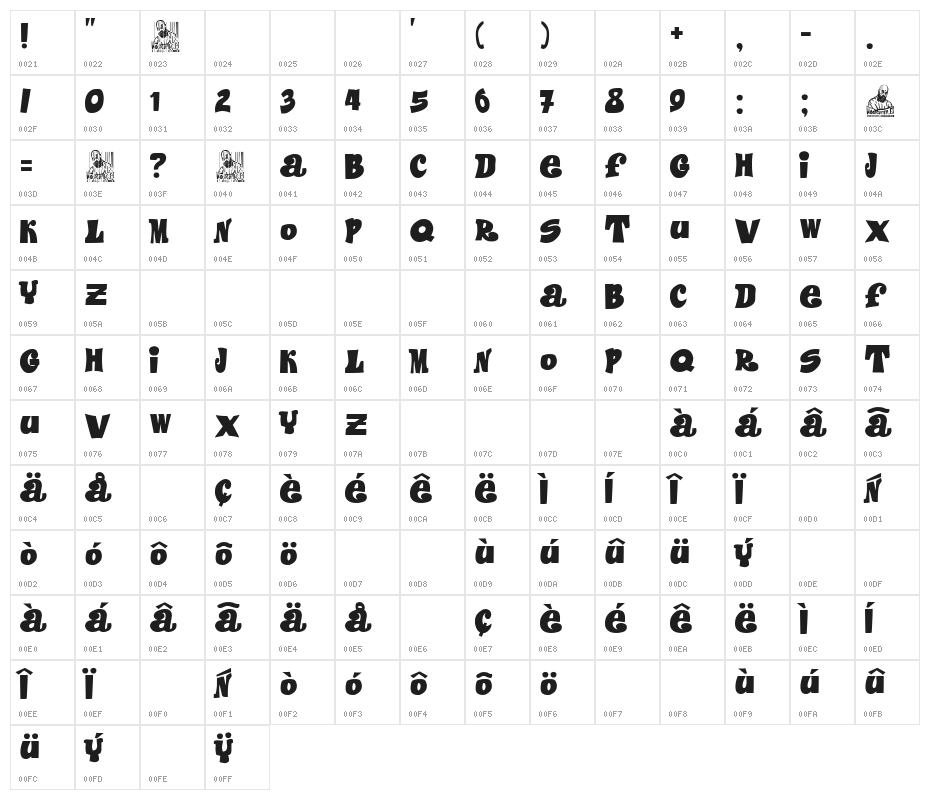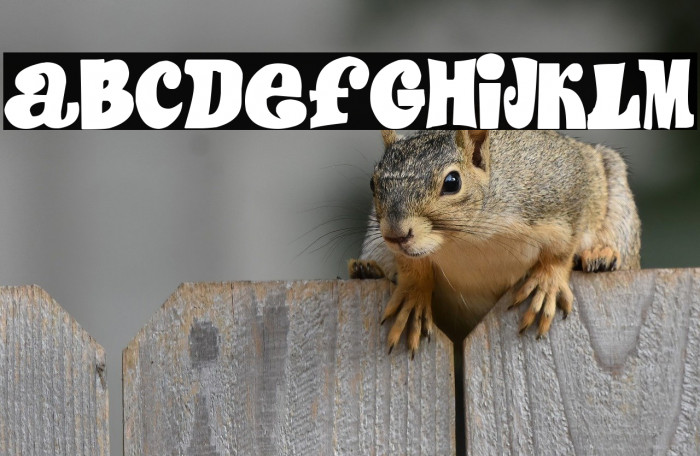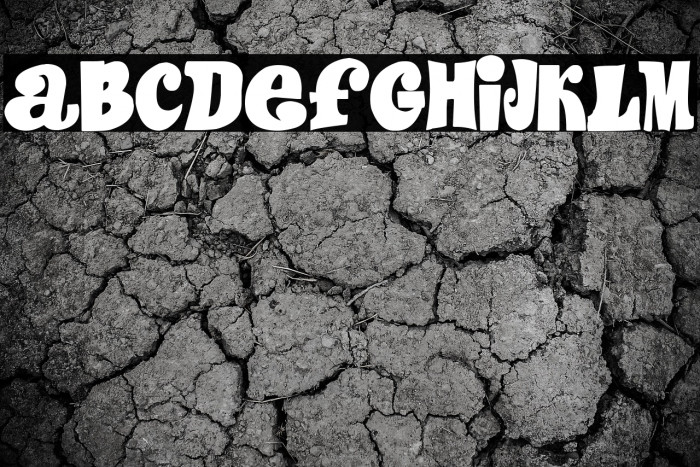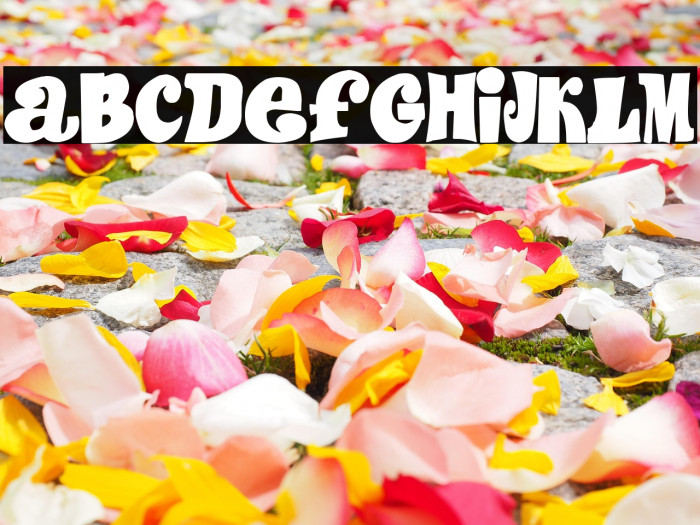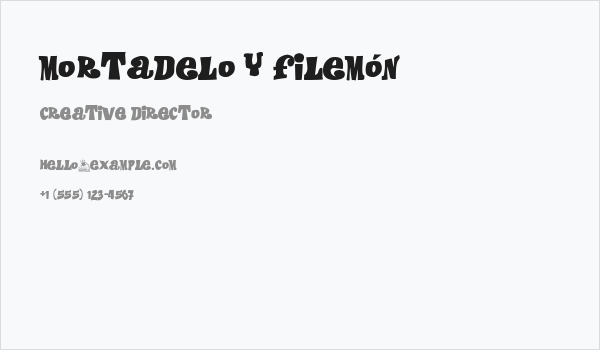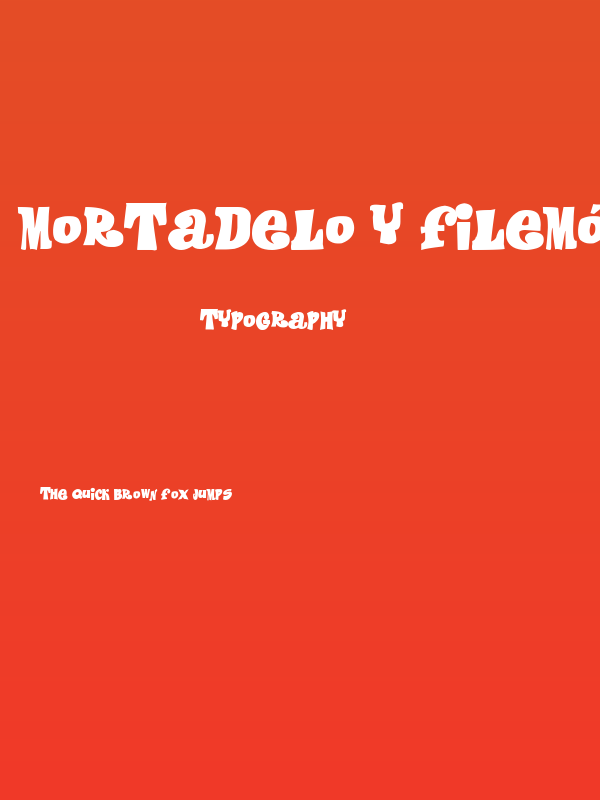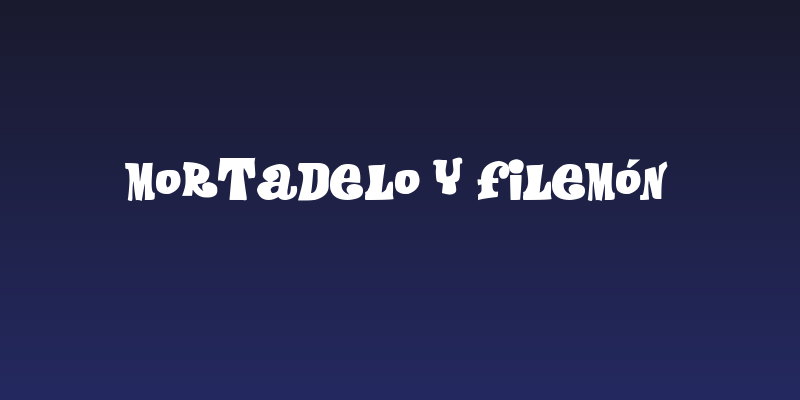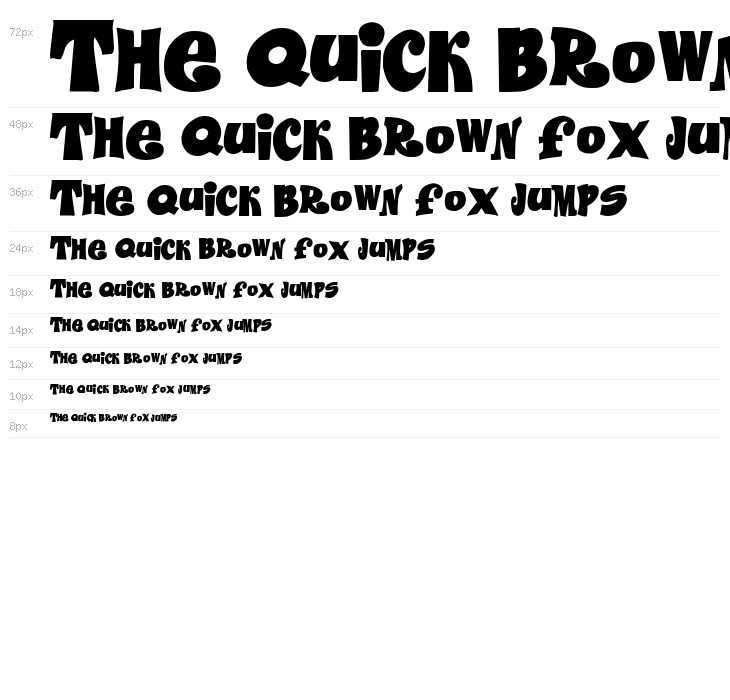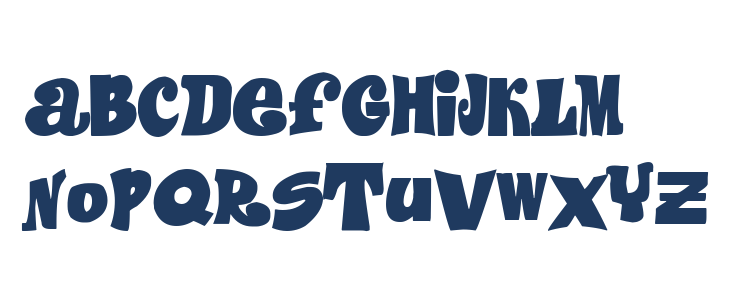
Mortadelo y Filemón Font
Mortadelo y Filemón Description
This font features a bold and playful design, characterized by its thick, rounded letterforms and exaggerated serifs. The letters have a whimsical, cartoonish style, with a strong presence and a sense of movement. The uppercase and lowercase letters maintain a consistent weight, providing a cohesive look. The numbers and special characters follow the same playful aesthetic, making the font suitable for eye-catching designs. Its unique style is perfect for projects that require a fun and engaging visual impact.
| Overall Style | Playful, Cartoonish |
| Proposed Projects | Ideal for comic books, children's books, playful branding, posters, and party invitations. |